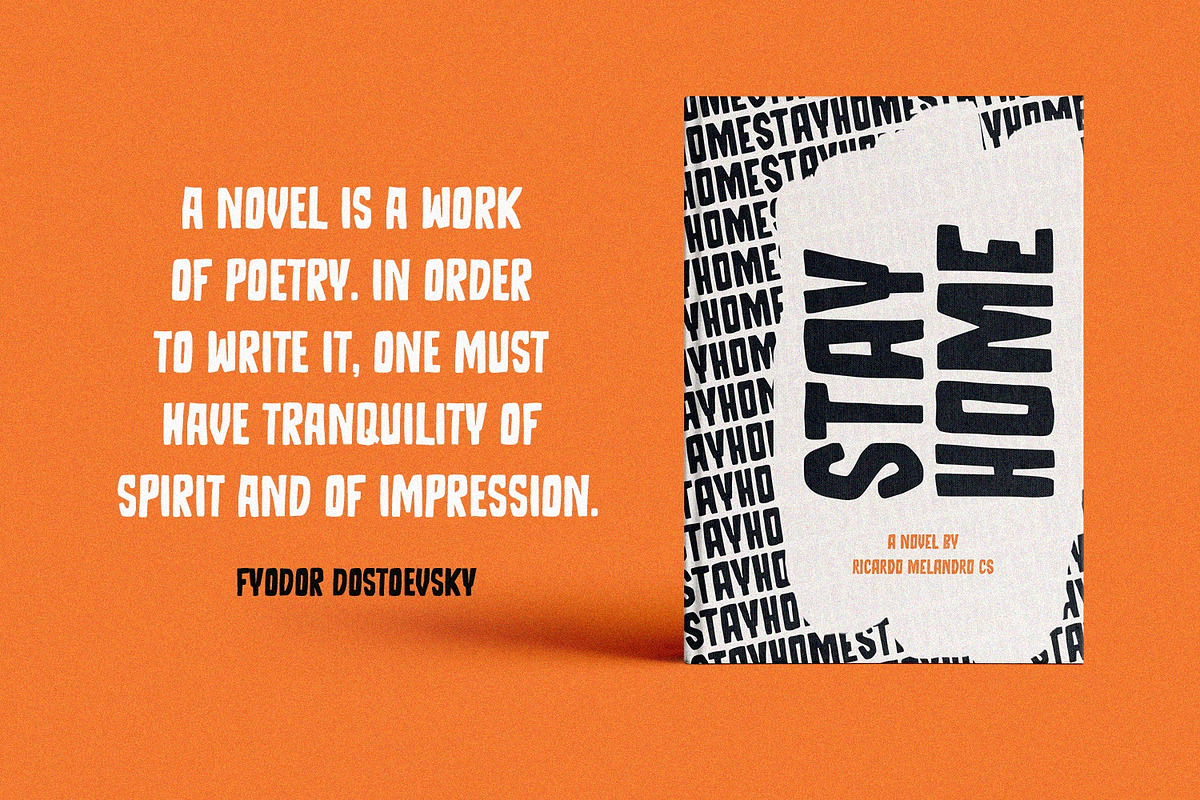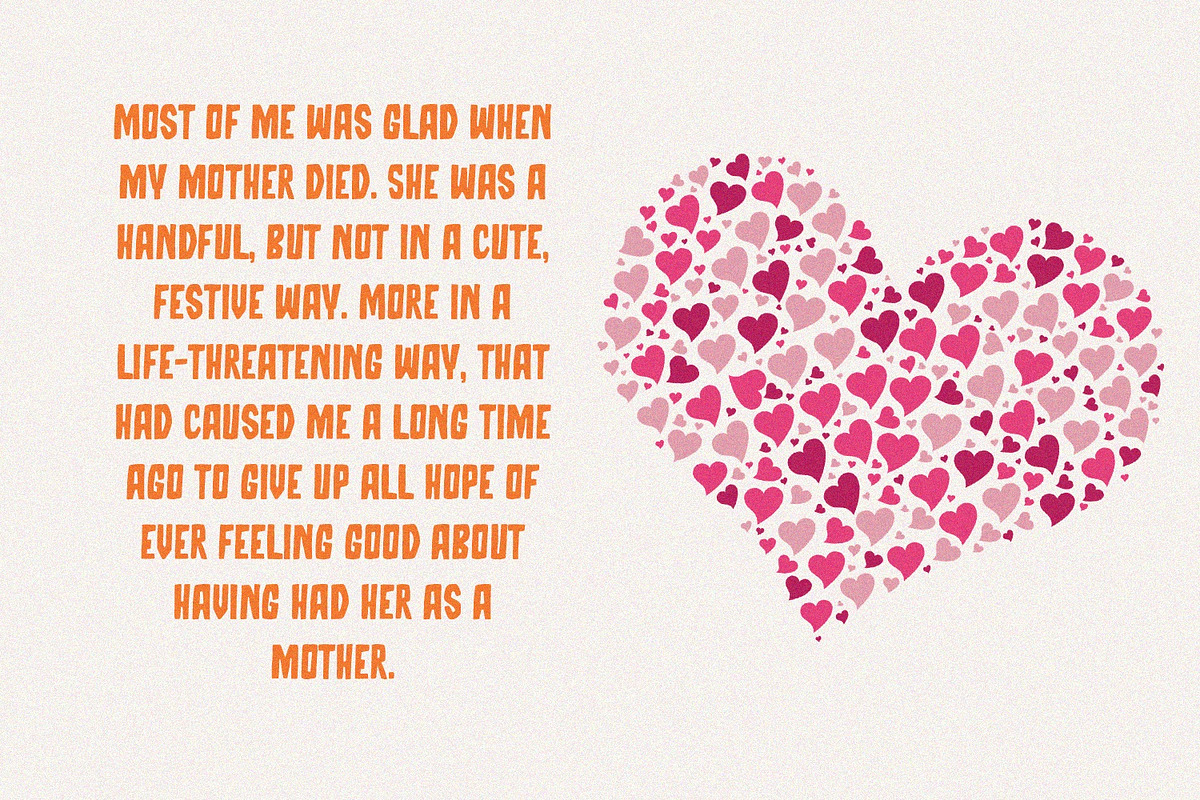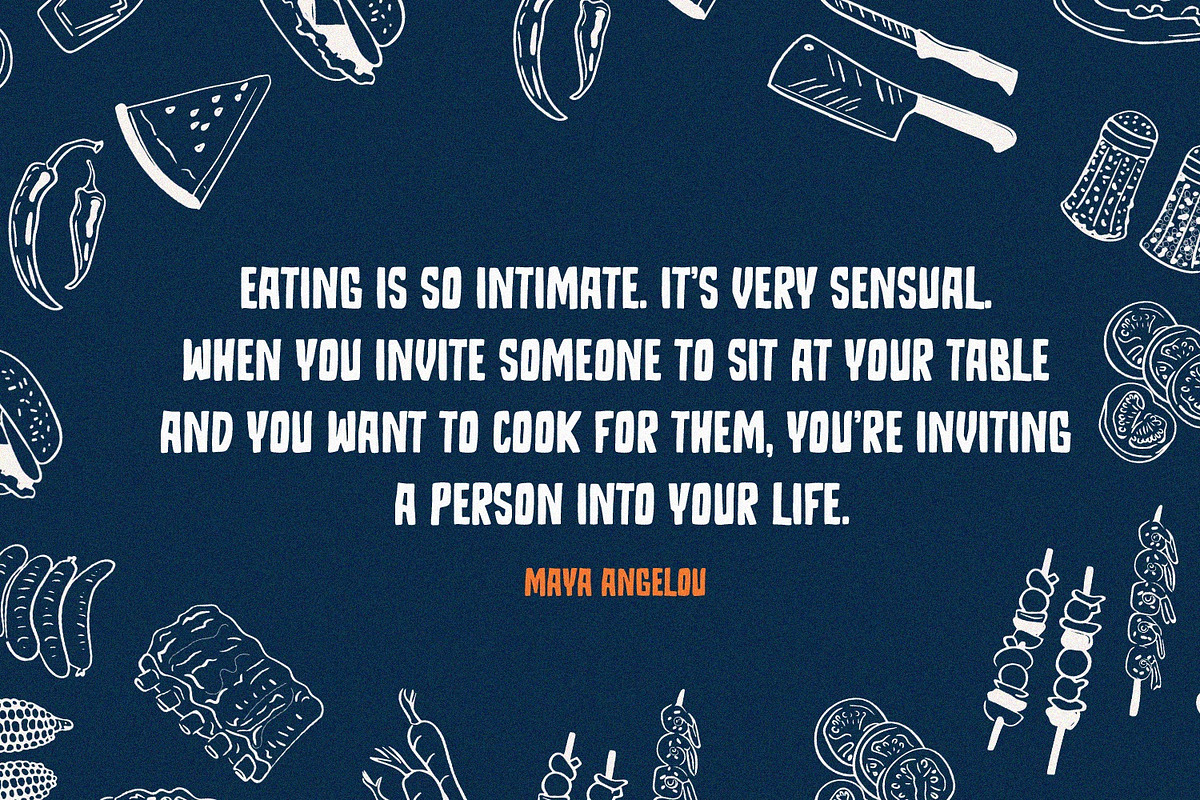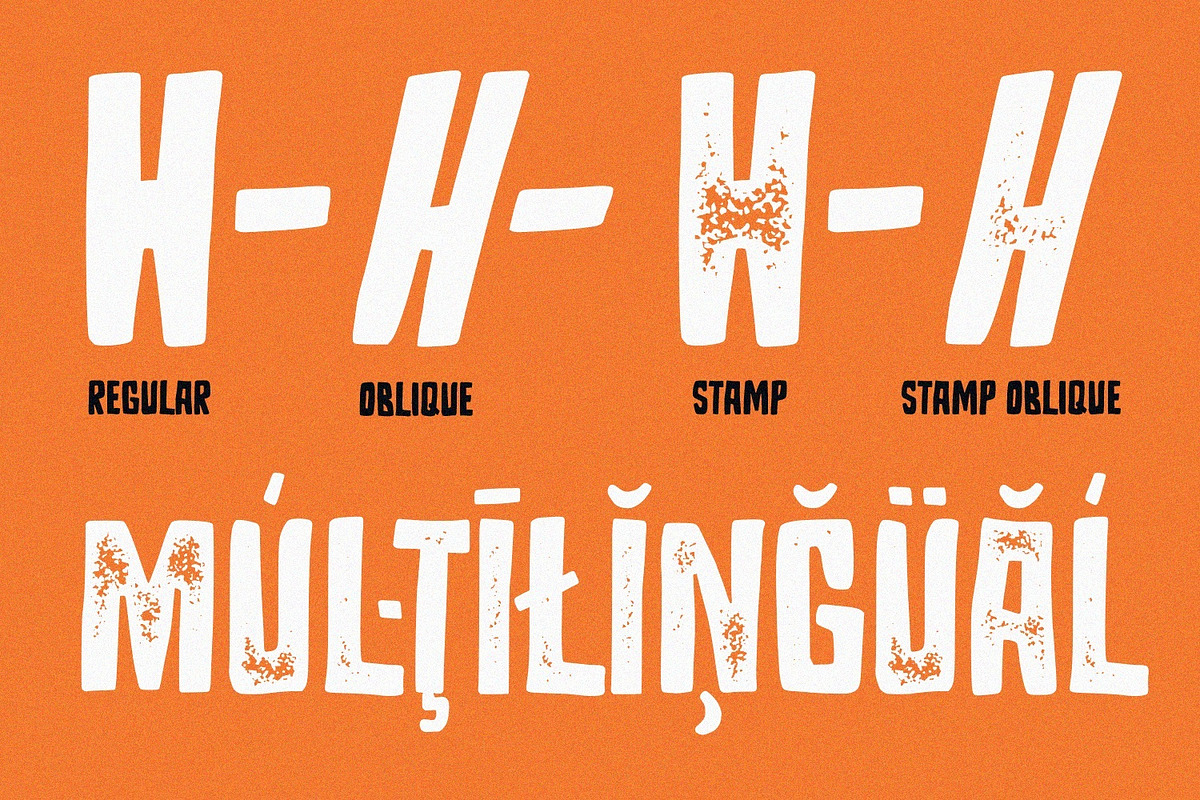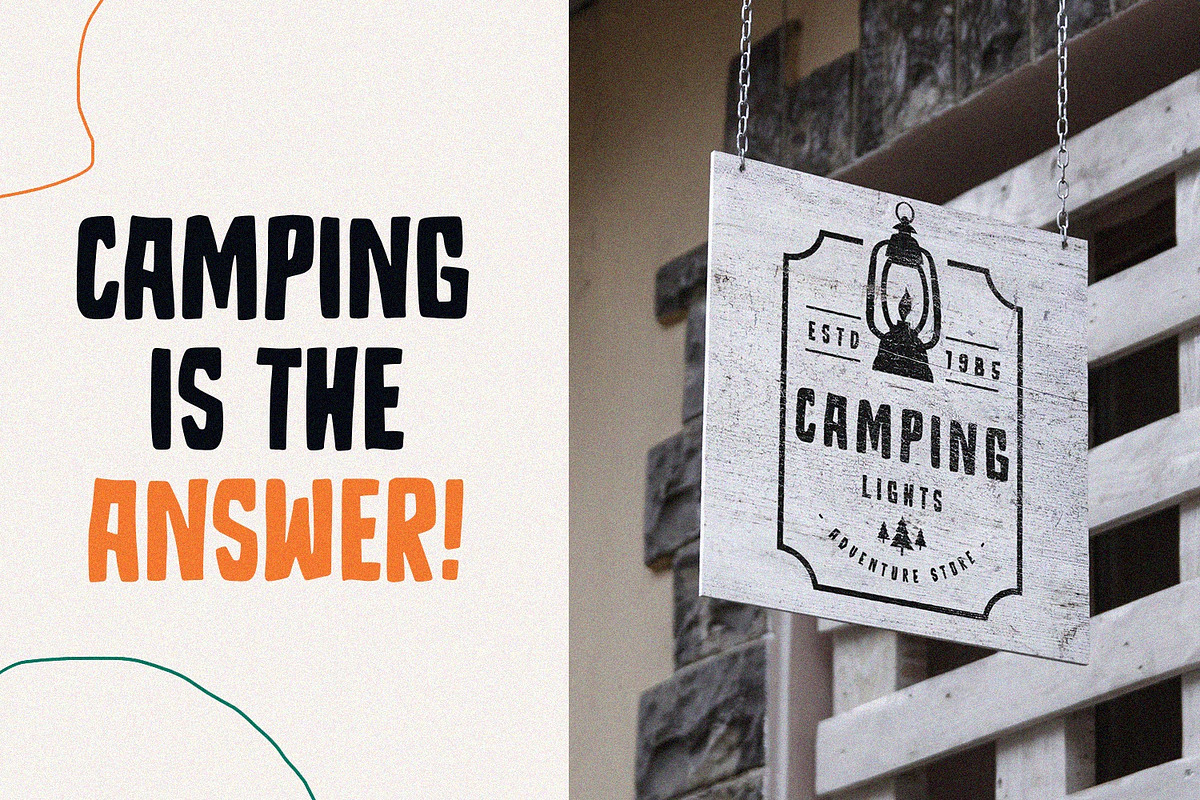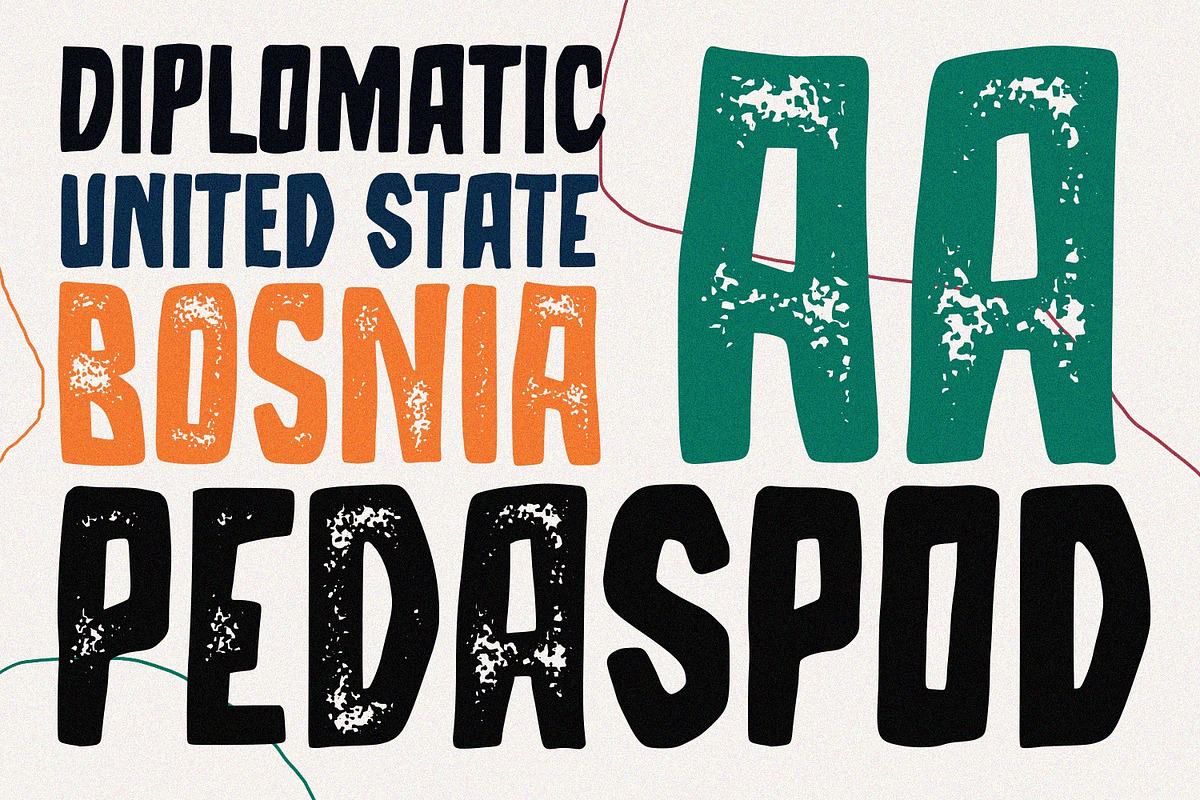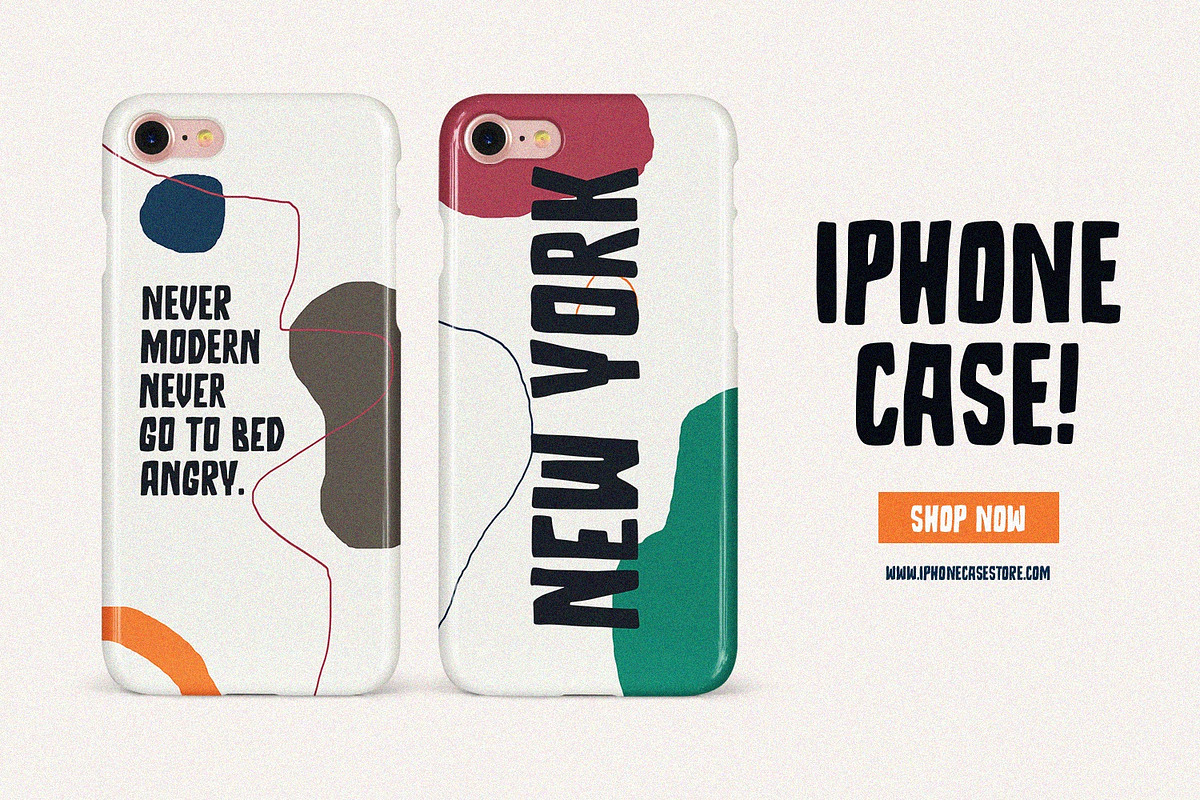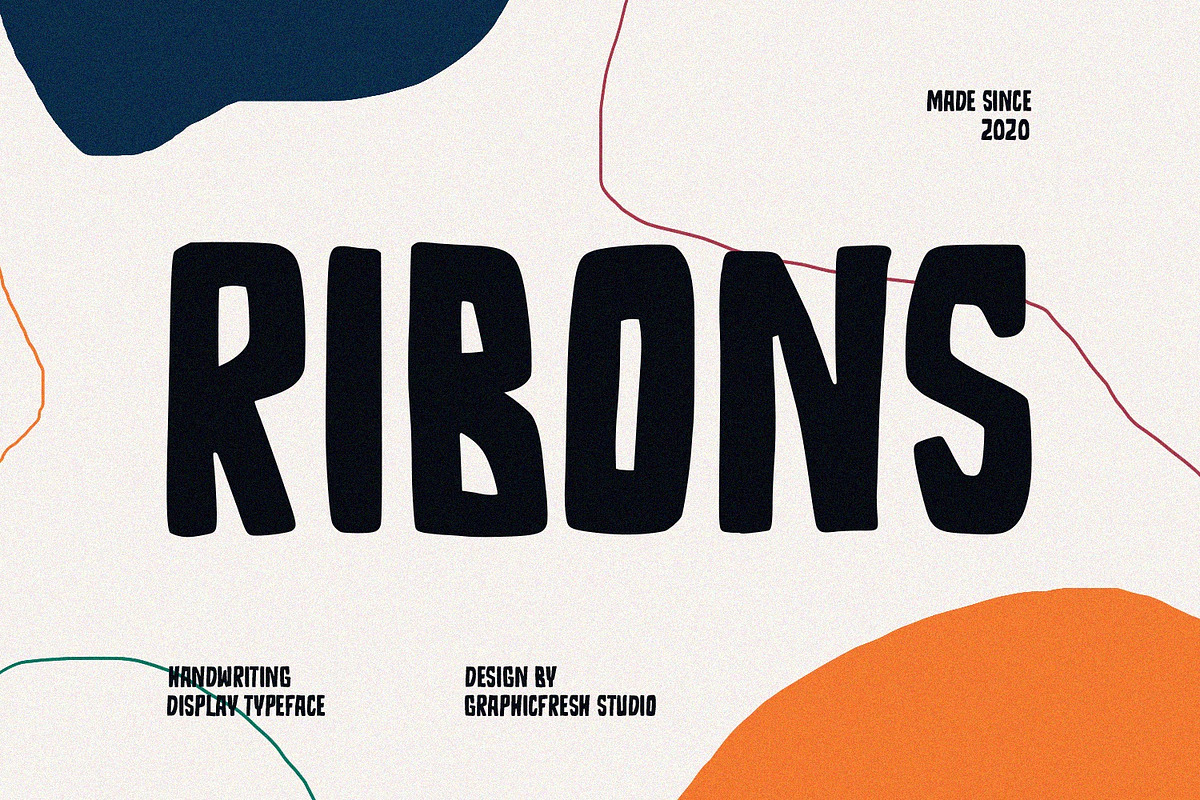
Ribons - A Handwriting Display Font
In making this font, I spent a lot of time thinking about a handwriting with a display style. Each letter is carefully made to look as natural as possible. We are trying to make this font suitable for use in brands or logos with the theme of handwriting. I hope you like the font we made.
Ribons Type Features:
Suitable for Headlines, Logotypes, Signs, Posters, Letterhead, T-Shirt and many more.
Support Multilingual Language
Ribons - A Handwriting Display Font by Graphicfresh fits naturally into Branding, posters, packaging, typography.